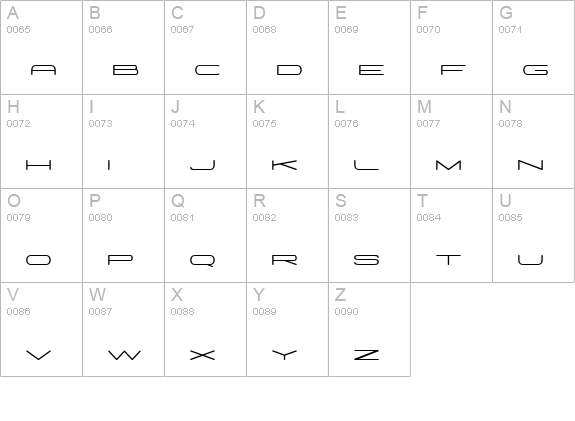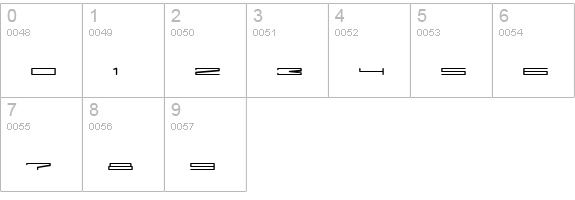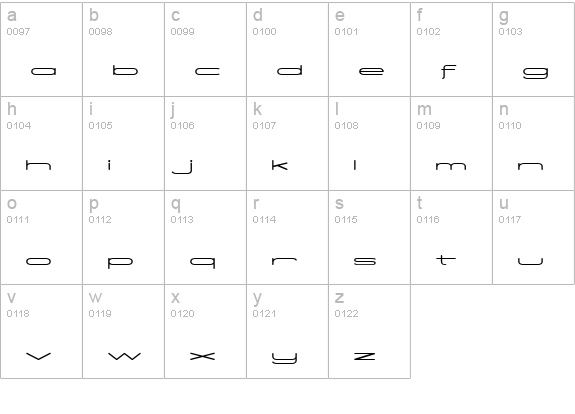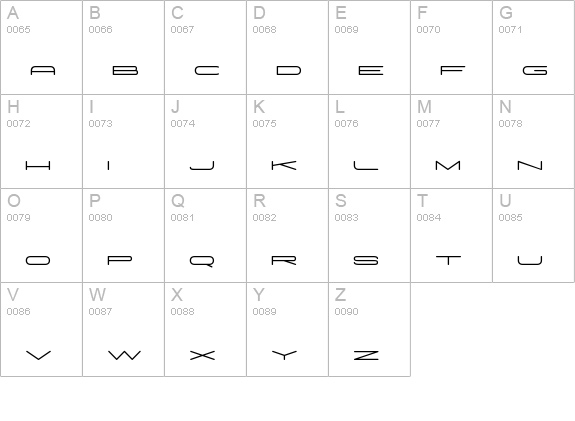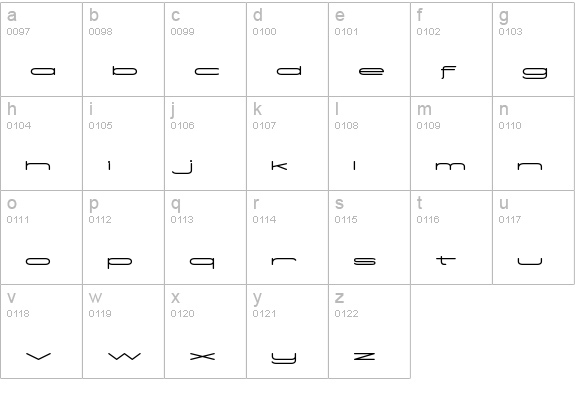
Madeleine - Family Font is a versatile and elegant typeface that adds a touch of sophistication to any design project. With its classic yet modern look, this font is perfect for a wide range of applications, from branding and marketing materials to invitations and social media graphics.
What sets Madeleine - Family Font apart is its unique combination of traditional charm and contemporary flair, making it a standout choice for those looking to make a statement with their typography. The font features a complete family of weights and styles, allowing for endless creative possibilities.